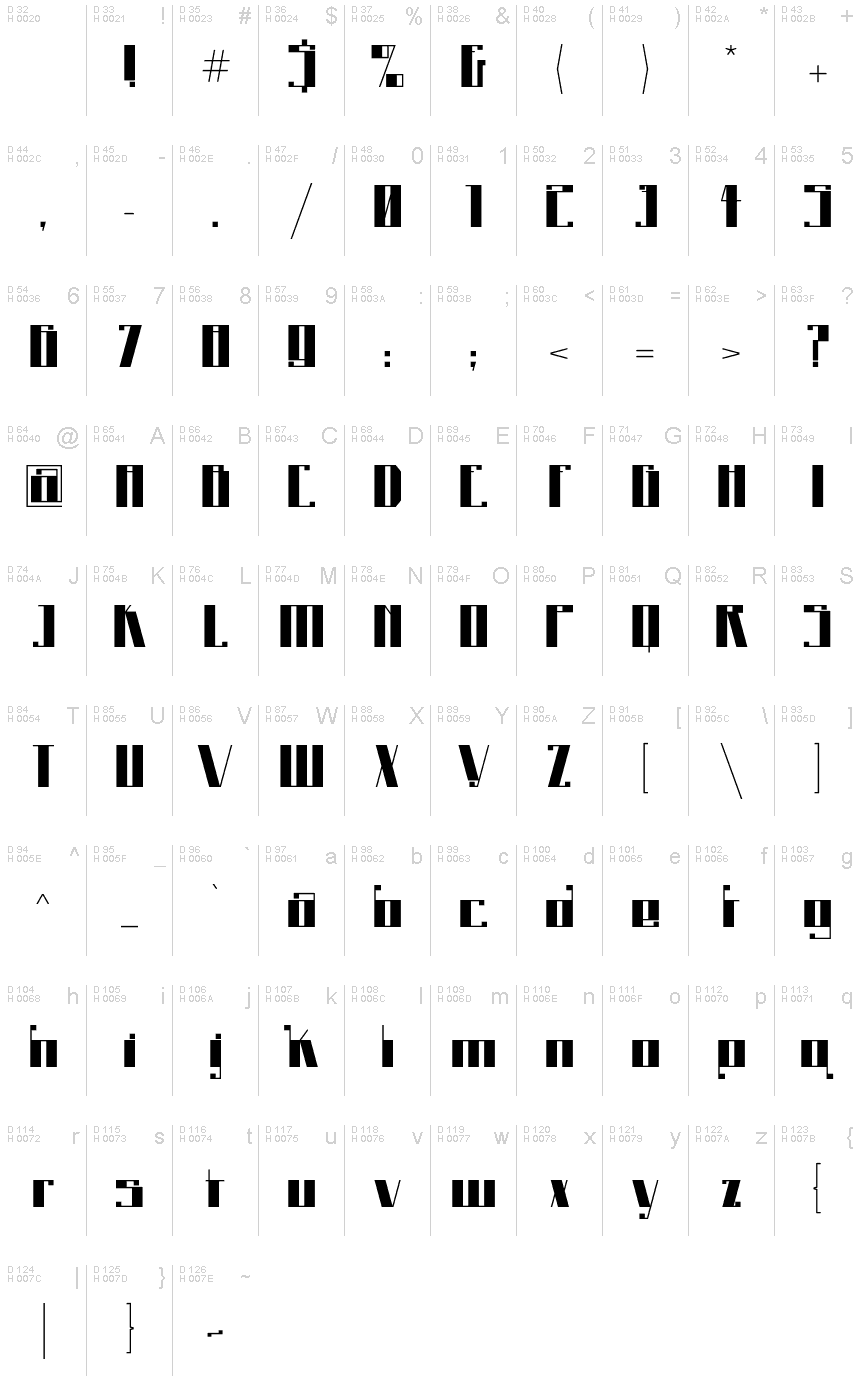
Underbite
Underbite font is a lovely techno typeface designed by Fatfly Design.
I started developing this typeface in October 2020. The concept is based on very high contrast, modern display typeface. All characters share the same basic rectangular structure. Development has continued well into 2021. This is the first time I have developed both upper and lower case letters. In addition, I developed numbers and 32 other common glyphs such as punctuation marks.